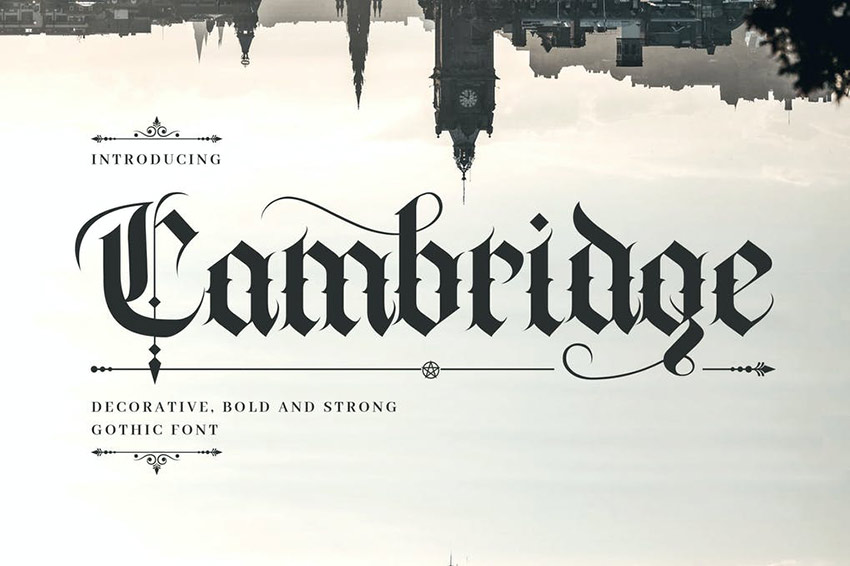
1. Volantis Vintage Blackletter Font (OTF, TTF, WOFF)
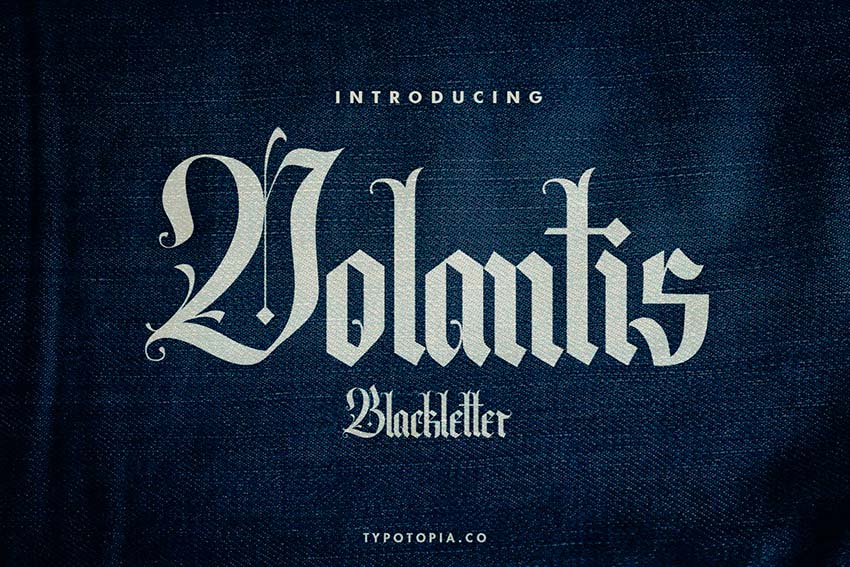
Volantis is a classic font with Gothic glyphs and ligatures. These old English font letters are great for branding, logos, flyers, and more. Volantis works on PC and Mac and all software. It also includes multilingual support.
This font is a great choice for:
- If you're looking to communicate elegance, bold old English fonts can do so while also making a strong statement.
- This is a decorative display font, so it's going to command attention by design. Use that to your advantage.
- Titles, headlines, and even logos would benefit from the artistic nature of this typeface.
Keep an eye out for:
- Since this is a decorative typeface, consider keeping the text limited. A word or phrase could work well, but an entire paragraph could be visually overwhelming.
- This font also works well at larger sizes, so all of the ornate details stay clearly visible and easier to read.
2. The Bjorke: Handmade Old English Font (OTF, TTF, WOFF)
The Bjorke is one of the latest additions on Envato Elements. This calligraphy old English font also features a classic Gothic design. It comes in two styles: regular and alternative. It's easy to install and works on all software. Try this old English gothic font for your designs!
This font is a great choice for:
- Notice how well this font works over imagery, when left in a contrasting solid color, as we see in this example.
- This font could also pair nicely with a more supplemental serif font, if you're looking to create a font pairing.
- Display fonts can be an excellent choice for commanding attention. Try using this font in your focal points.
Keep an eye out for:
- You may want to avoid pairing this font with other ornate fonts. If you need a second typeface, consider a supplement that is less decorative.
- Old English font lettering may not have the strongest readability in long paragraphs, unless you're in a highly specific, stylized situation.
3. Old Charlotte: Bold Decorative Gothic Font (OTF, TTF, WOFF)
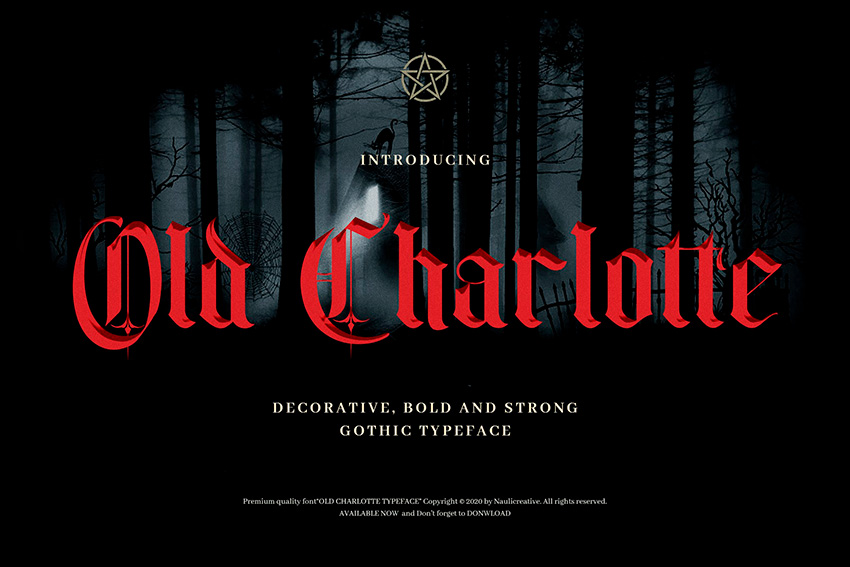
Looking for eye-catching old English type fonts? Try Old Charlotte, a gothic font featuring a bold design. You'll get old English font numbers, along with uppercase and lowercase characters. Try this font for any gothic project!
This font is a great choice for:
- Different old English fonts can visually communicate different things—but they all have a bold ornate quality that lends itself to a dramatic look.
- Your design choices still matter, however. Notice how, in this example, we can push that drama into a horror aesthetic with the right color and graphical choices.
- Bold old English fonts can be a great choice when you're looking to push a gothic look. They inherently have a quality that resonates well with that aesthetic.
Keep an eye out for:
- Choose design elements and text effects that complement the letterforms and your desired outcome. This font in neon pink, for example, would lose some of its spooky drama.
- Again, display type is often best served large, front and center, in a very present way. Consider using this type in that fashion.
4. Alabasta: The Blackletter Font (OTF, TTF, WOFF)
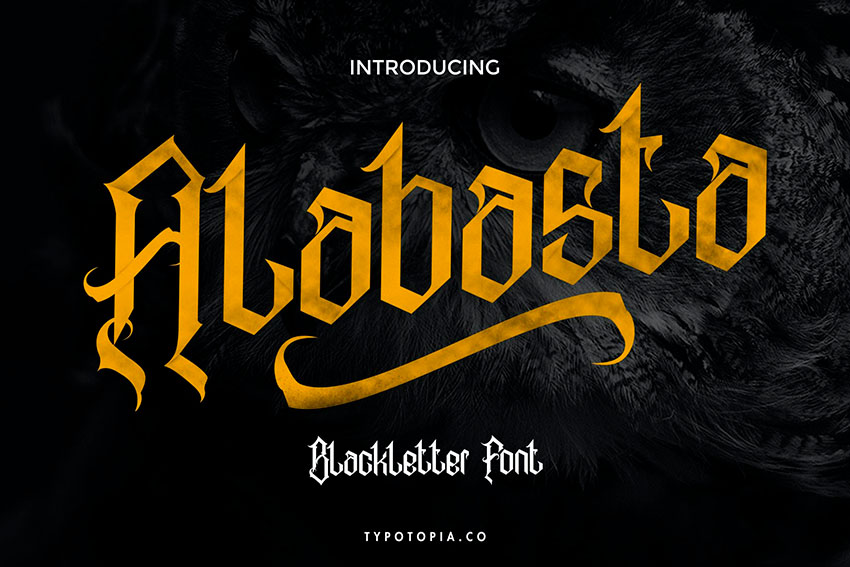
Alabasta is a unique old English gothic font. It includes cool glyphs and alternates to make your design stand out. It's fully accessible without additional design software. And it also includes multilingual support.
This font is a great choice for:
- If you're looking for different old English fonts that still have that old English design but with a different twist, try a font like this one.
- Solutions that are very visual or graphic but also require type could benefit well from a really creative display font like this old English modern font.
- This font is particularly artistic and includes alternates you can use to create a really unique solution for your chosen type.
Keep an eye out for:
- Considering the detailed nature of this font, keep an eye on legibility. You may want to limit the amount of copy that you use—paragraphs, for example, could prove to be overwhelming.
- A clean, simple supplement could work as a strong font pairing for this stylized old English lettering. If you're going for an older look, try a serif font.
5. Cambridge: Bold Decorative Gothic Font (OTF, TTF, WOFF)
When you think of Olde English lettering, what comes to mind is a bold, Gothic, and medieval hand-lettering style, exactly like this one. This is a fantastic old English font with numbers, punctuation, and alternate characters.